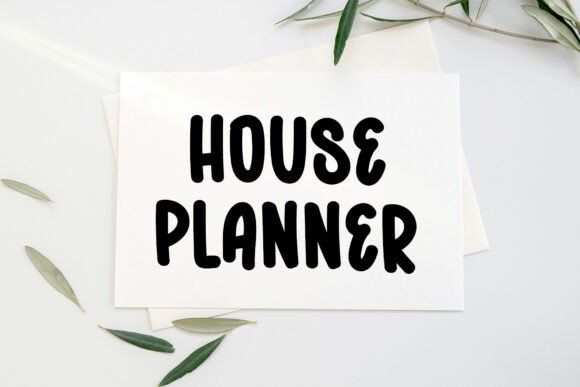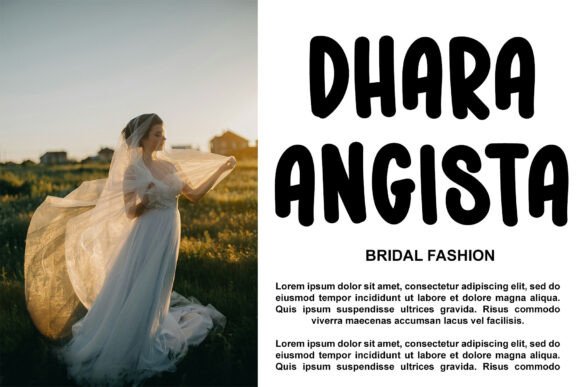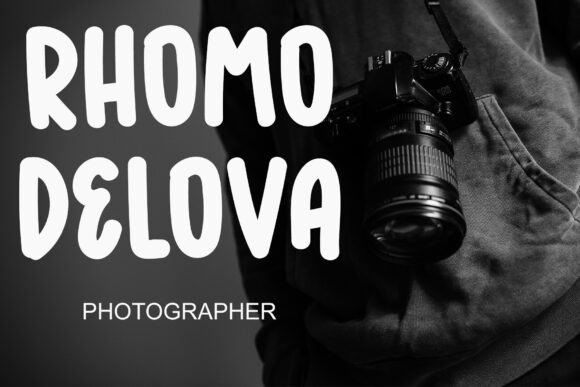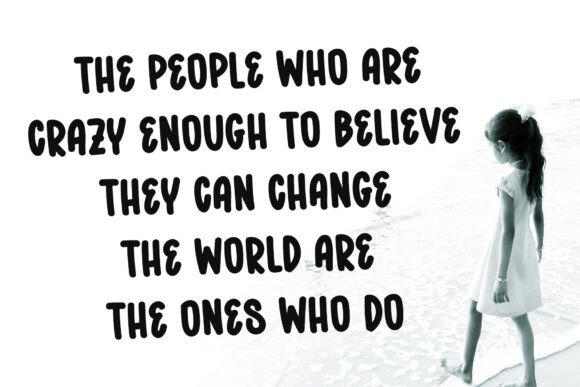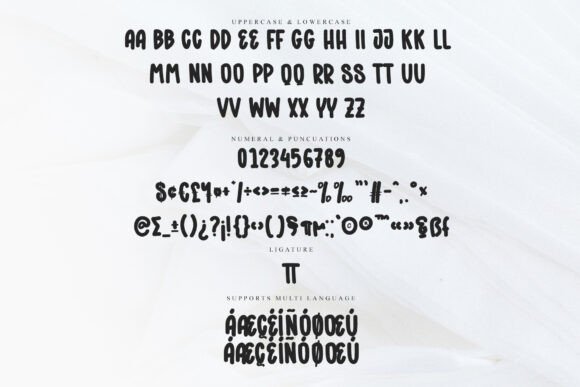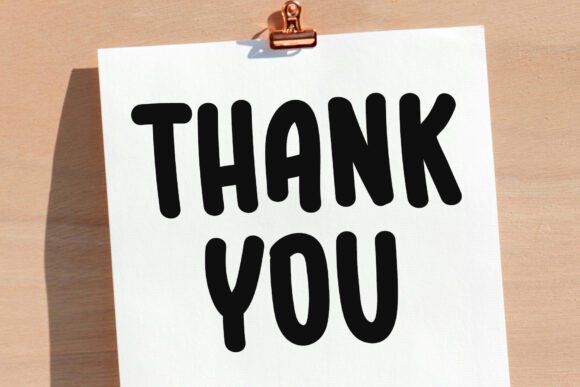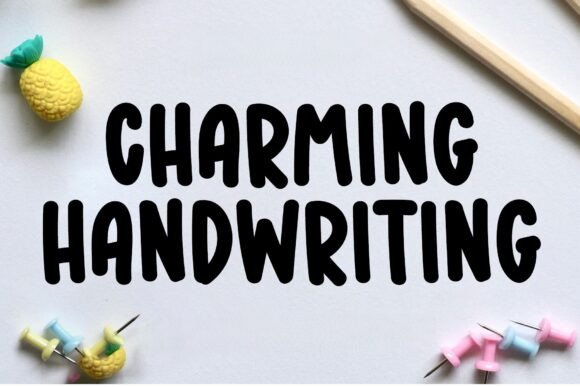
Discover the Delightful Charm of Charming Handwriting Font
Are you looking for a font that adds a touch of personality to your designs? Look no further than the Charming Handwriting Font. This playful display font is perfect for children’s projects, DIY designs, or casual branding, and its fun and approachable style is sure to capture the hearts of your audience.
What Makes Charming Handwriting Font So Special?
Charming Handwriting Font is a delightful typeface that feels friendly and lighthearted. Its playful style makes it ideal for designs that require a personal touch. Whether you’re working on a children’s book, a craft project, or a branding campaign, this font is sure to add a touch of whimsy and charm.
Key Features of Charming Handwriting Font
- Playful Display Font: Charming Handwriting Font is a display font that is designed to make a statement. Its playful style is perfect for headlines, titles, and other design elements that need to stand out.
- Fun and Approachable Style: This font has a fun and approachable style that feels friendly and lighthearted. It’s perfect for designs that require a personal touch.
- Ideal for Children’s Projects: Charming Handwriting Font is perfect for children’s projects, such as children’s books, educational materials, and kids’ party decorations.
- Perfect for DIY Designs: This font is also great for DIY designs, such as craft projects, scrapbooking, and other handmade crafts.
- Suitable for Casual Branding: Charming Handwriting Font is a great choice for casual branding, such as logos, business cards, and social media graphics.
How to Use Charming Handwriting Font in Your Designs
Charming Handwriting Font is easy to use and can add a touch of personality to your designs. Here are some ideas for using this font:
- Children’s Books: Use Charming Handwriting Font as a title font or throughout your children’s book to add a playful touch.
- Craft Projects: Add a personal touch to your craft projects, such as scrapbooking, card making, and other handmade crafts.
- Branding: Use Charming Handwriting Font as a logo font or for social media graphics to add a friendly and approachable touch to your brand.
- Party Decorations: Use this font to create fun and playful party decorations, such as banners, signs, and invitations.
Tips for Pairing Charming Handwriting Font with Other Fonts
Pairing Charming Handwriting Font with other fonts can create a unique and interesting design. Here are some tips for pairing this font:
- Pair with a Serif Font: Pair Charming Handwriting Font with a serif font, such as Times New Roman or Garamond, to create a nice contrast between the playful and traditional fonts.
- Pair with a Sans-Serif Font: Pair this font with a sans-serif font, such as Arial or Helvetica, to create a modern and playful look.
- Use as a Display Font: Use Charming Handwriting Font as a display font and pair it with a simpler font for body text.
Charming Handwriting Font is a delightful typeface that adds a touch of personality to your designs. Its playful style makes it ideal for children’s projects, DIY designs, or casual branding. With its fun and approachable style, this font is sure to capture the hearts of your audience. So why not give it a try and add a touch of charm to your designs?
Get Creative with Charming Handwriting Font